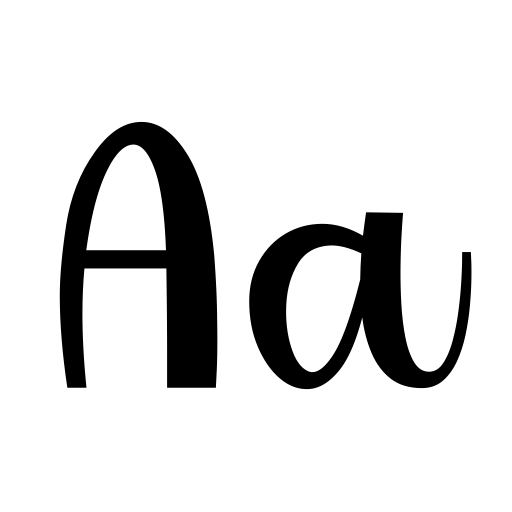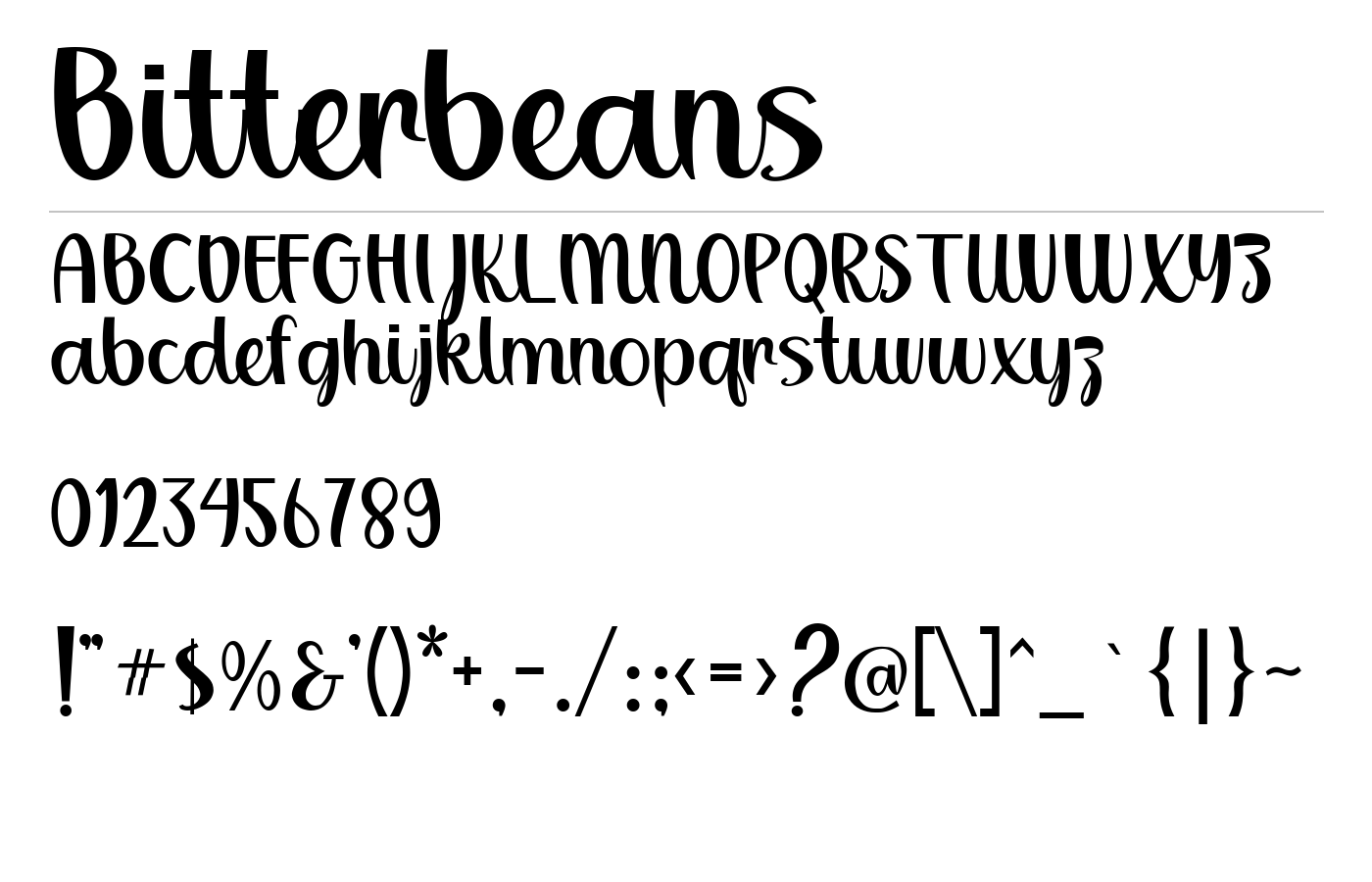
Bitterbeans is a playful and quirky sans serif font characterized by its tall, narrow letterforms and moderately high x-height, creating an inviting and friendly appearance. The strokes are smooth with subtle curves, giving it a hand-drawn feel while maintaining clear readability, making it ideal for casual branding, children’s products, and creative headlines. Its unique letter shapes and lively personality make it perfect for designs that want to convey warmth and approachability without sacrificing style.
Bitterbeans Font
About Bitterbeans Font